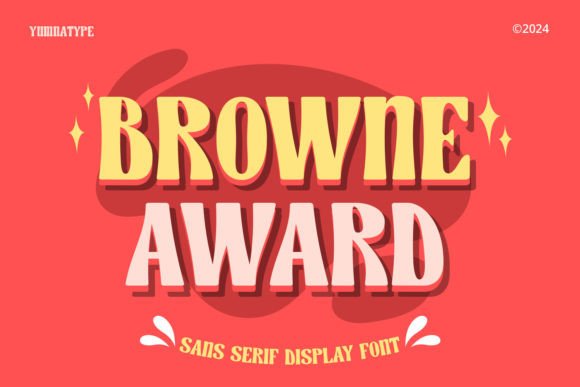
Browne Award Font: A Bold and Eye-Catching Sans Serif Display Font
The Browne Award Font is a stunning sans serif display font that is designed to make a bold impression. Its unique design and bold weight make it perfect for headlines, titles, and any other text that needs to stand out. In this article, we will take a closer look at the Browne Award Font, its features, and what makes it an excellent choice for designers and businesses alike.
What is Browne Award Font?
The Browne Award Font is a sans serif display font that is designed to be eye-catching and bold. It is perfect for use in headlines, titles, and any other text that needs to make a statement. The font is characterized by its clean and modern design, making it suitable for a wide range of applications, from digital media to print materials.
Key Features of Browne Award Font
The Browne Award Font has several key features that make it an excellent choice for designers and businesses. Some of its key features include:
- Bold Weight: The bold weight of the Browne Award Font ensures that each letter stands out prominently, making it perfect for headlines and titles.
- Visible Contrast Strokes: The quite visible contrast strokes add a dynamic to the font, making it more visually interesting and engaging.
- Enhanced Readability: The contrast strokes also enhance readability, making the Browne Award Font both functional and aesthetically pleasing.
- Clean and Modern Design: The font has a clean and modern design, making it suitable for a wide range of applications.
What Makes Browne Award Font Stand Out?
The Browne Award Font stands out from other fonts due to its unique design and features. Here are some of the things that make it stand out:
- Unique Contrast Strokes: The contrast strokes in the Browne Award Font are quite visible, making it more visually interesting and engaging.
- Bold and Eye-Catching: The font is designed to be bold and eye-catching, making it perfect for headlines and titles.
- High Readability: The font has high readability, making it easy to read and understand.
- Versatility: The Browne Award Font is versatile and can be used in a wide range of applications, from digital media to print materials.
How to Use Browne Award Font?
The Browne Award Font can be used in a variety of ways, depending on your design needs. Here are some of the ways you can use the font:
- Headlines and Titles: Use the Browne Award Font for headlines and titles to make them stand out.
- Digital Media: Use the font in digital media, such as websites, social media, and email marketing campaigns.
- Print Materials: Use the font in print materials, such as brochures, flyers, and posters.
- Branding: Use the Browne Award Font as part of your brand identity to make your brand stand out.
Benefits of Using Browne Award Font
There are several benefits to using the Browne Award Font in your designs. Here are some of the benefits:
- Increased Visibility: The font is designed to be eye-catching and bold, making it perfect for headlines and titles.
- Improved Readability: The font has high readability, making it easy to read and understand.
- Enhanced Brand Identity: The Browne Award Font can be used as part of your brand identity to make your brand stand out.
- Versatility: The font is versatile and can be used in a wide range of applications.
In conclusion, the Browne Award Font is a stunning sans serif display font that is designed to make a bold impression. Its unique design and features make it perfect for headlines, titles, and any other text that needs to stand out. With its bold weight, visible contrast strokes, and high readability, the Browne Award Font is an excellent choice for designers and businesses alike.
Q: What is the Browne Award Font?
A: The Browne Award Font is a sans serif display font that is designed to be eye-catching and bold.
Q: What are the key features of the Browne Award Font?
A: The key features of the Browne Award Font include its bold weight, visible contrast strokes, and high readability.
Q: How can I use the Browne Award Font?
A: The Browne Award Font can be used in a variety of ways, including headlines, titles, digital media, print materials, and branding.